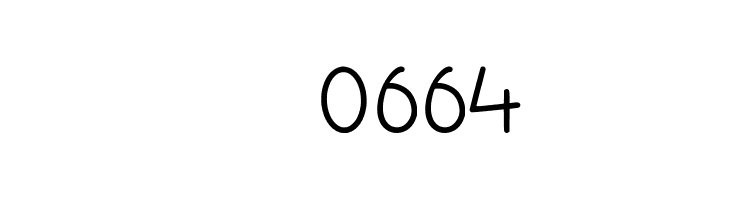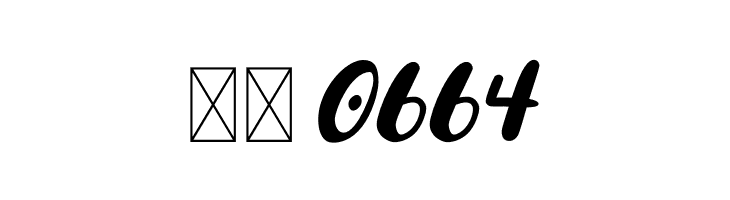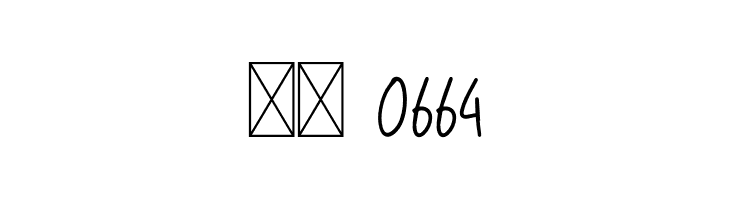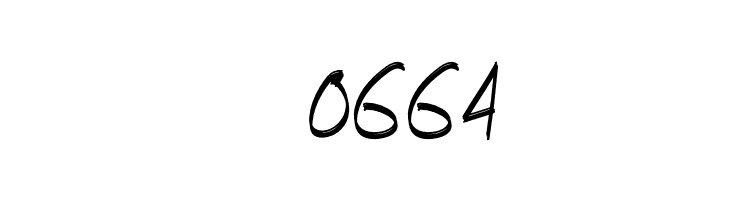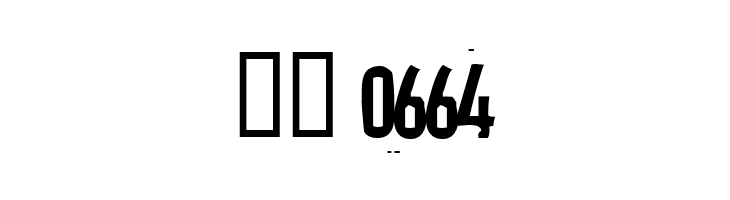
• BlastingBrush
A bold, brush-style font with dynamic, hand-drawn strokes.
• Bleed
An edgy, thorn-like font with a distressed and chaotic appearance.
• Blender Regular
A bold, geometric font with a 3D effect and strong contrast, ideal for headlines.
• BlendfontsIncpot
A chaotic, abstract font with irregular shapes and a graffiti-like style.
• BlendfontsMonokultur
A bold, blackletter-style font with sharp, angular edges.
• BlendfontsMultikultur
A bold blackletter font with sharp, angular lines and a gothic aesthetic.
• BlendfontsWuestling
A bold, high-contrast cursive font with dynamic and decorative letterforms.
• Blinded PERSONAL USE
A distressed serif font with a vintage, grunge aesthetic.
• BLINKY SEASON
A playful handwritten font with a casual and friendly style.
• Blintzie
A bold, dynamic script font with a handwritten style.
• BlissBucket
A geometric, octagonal font with a modern and industrial style.
• Blista Rade Slant Demo
A dynamic, slanted handwritten font with smooth, flowing lines.
• BlittarRainRegular
A casual handwritten font with a lively and dynamic style.
• BLOCK Bold
A bold, geometric font with a strong, industrial aesthetic.
• BLOCK Bold Italic
A bold, italicized font with a blocky, geometric style, perfect for impactful headlines.
• BLOCK Italic
A bold, blocky, italicized font with a geometric and modern style.
• BLOCK-Hollow
A bold, geometric font with hollow interiors and a modern, industrial feel.
• BLOCK-Hollow-Inverse
A bold, blocky font with hollow interiors and a geometric, modern style.
• BLOCK-Inverse
A bold, blocky font with an inverse design and geometric shapes.
• BlockHead
A geometric, blocky font with uniform line thickness and a digital aesthetic.
• BlockHead Fat